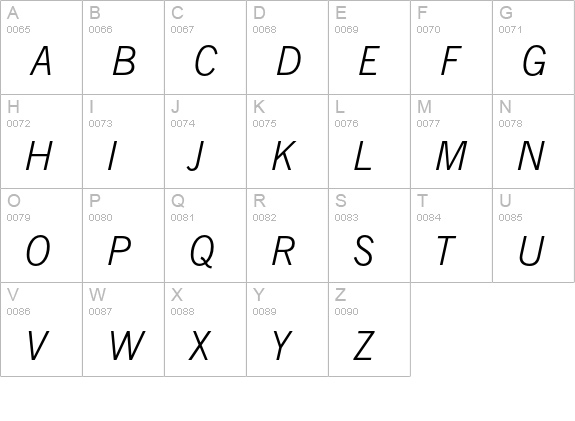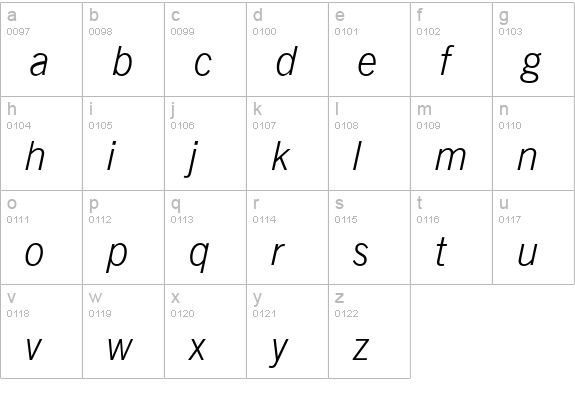
News Gothic Light Italic Font Details
News Gothic Light Italic is a refined, elegant, italic variant in the News typeface family \xE2\x80\x94 well suited to elegant body text, refined sub-headings, and luxury branding.
News Gothic Light Italic is a sleek and modern typeface that exudes elegance and sophistication. With its gentle slant and refined curves, this font is perfect for adding a touch of style to your designs. Whether you're working on a website, branding materials, or editorial layouts, News Gothic Light Italic will bring a subtle yet impactful flair to your projects. The best part? News Gothic Light Italic is available for free download at FontsMarket.com. Now you can easily access this versatile font to enhance your creative endeavors without any cost. Don't miss out on the opportunity to elevate your designs with this beautiful typeface that effortlessly blends professionalism with contemporary flair. Download News Gothic Light Italic today and see the difference it can make in your projects!